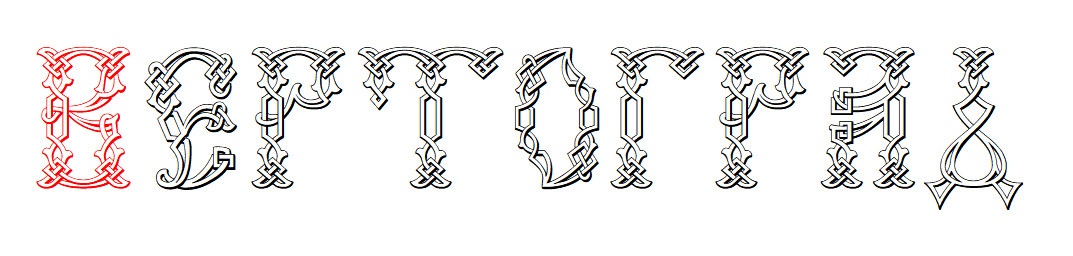
Vertograd Unicode Font
Vertograd Unicode Font is ideal for multilingual websites, international branding projects, academic publications, language learning materials, cultural documentation, global marketing campaigns, translation services, and comprehensive typography systems requiring extensive character support.
What makes Vertograd Unicode Font so exciting is its exceptional multilingual capabilities combined with consistent design quality across hundreds of different writing systems and character sets. This comprehensive typeface provides seamless typography solutions for projects spanning multiple languages and scripts, ensuring visual harmony while maintaining cultural authenticity. The font's extensive Unicode coverage makes it invaluable for global communications and international design projects.
The Vertograd Unicode Font family includes regular, bold, and italic variations across all supported character sets, providing designers with complete typographic flexibility for complex multilingual layouts and diverse cultural applications.
Vertograd Unicode Font Free Download represents an outstanding opportunity for designers working on international projects that demand comprehensive language support without compromising visual consistency. This versatile typeface excels in applications where multilingual communication is essential, making it perfect for global corporations, educational institutions, government agencies, and international non-profit organizations. The font's universal design approach makes it particularly valuable for websites, applications, and publications serving diverse global audiences.
The meticulously crafted letterforms of Vertograd Unicode Font maintain consistent visual weight and spacing across all character sets, ensuring that text appears balanced and professional regardless of the language or script being used. This attention to cross-cultural design consistency makes the font suitable for complex documents and interfaces where multiple languages must coexist harmoniously.
For contemporary global communication, Vertograd Unicode Font provides the perfect solution for organizations needing reliable multilingual typography that performs consistently across digital and print media. The font's comprehensive character support eliminates the need for multiple typeface solutions, streamlining design workflows while ensuring professional results across all supported languages and writing systems.